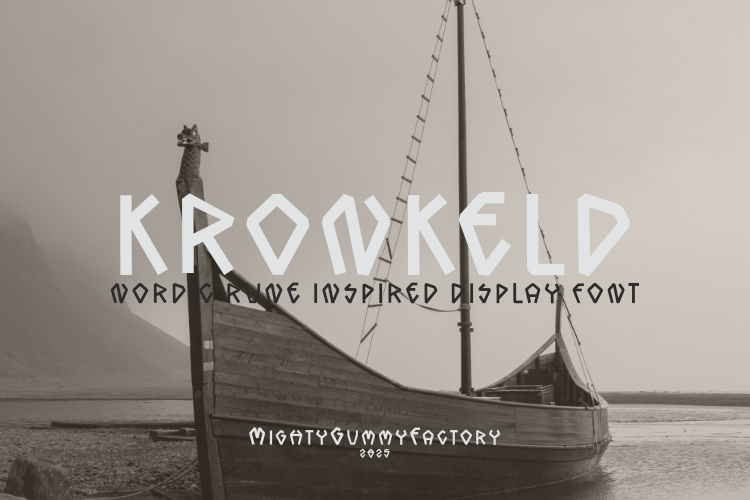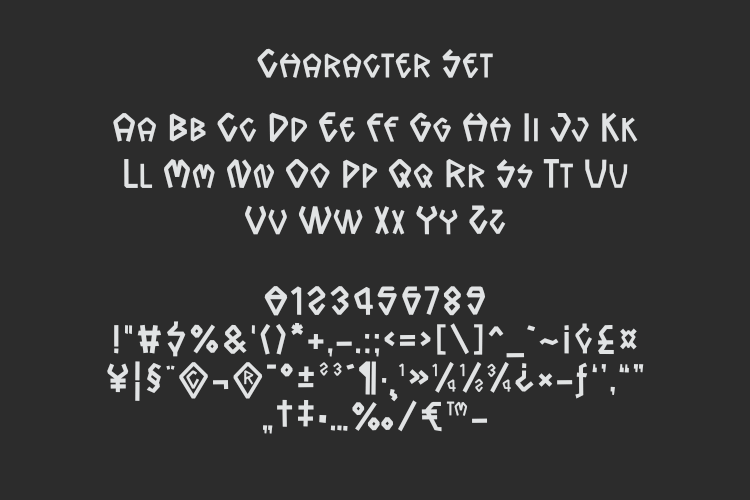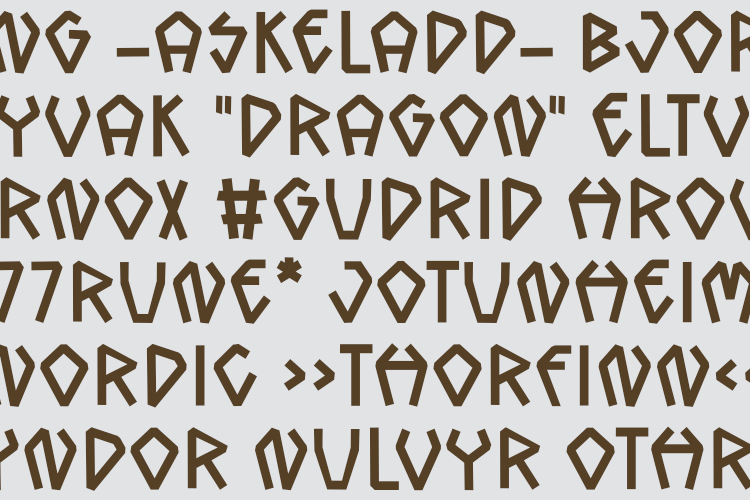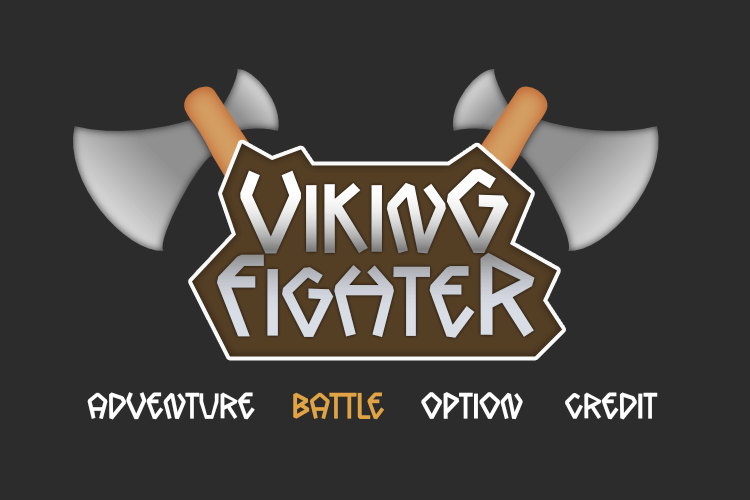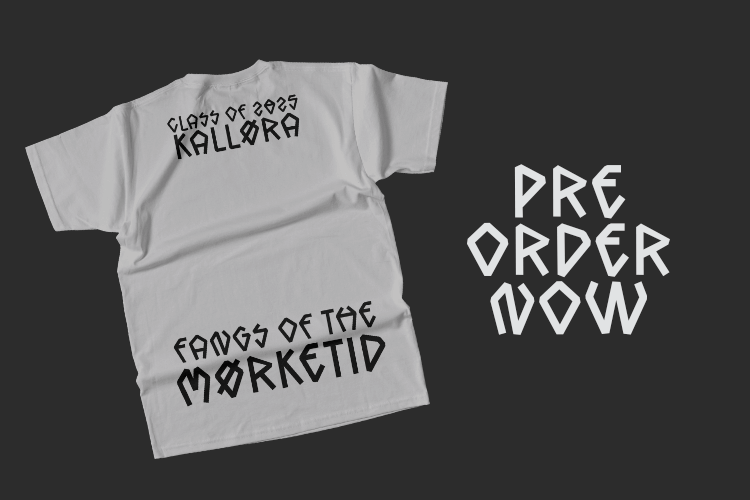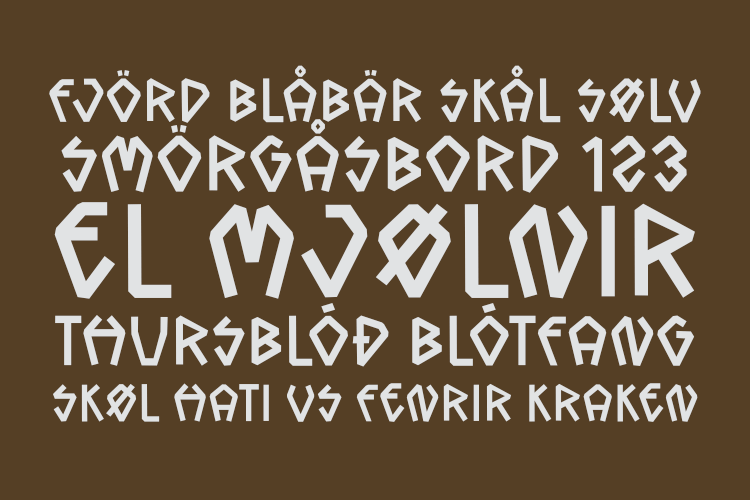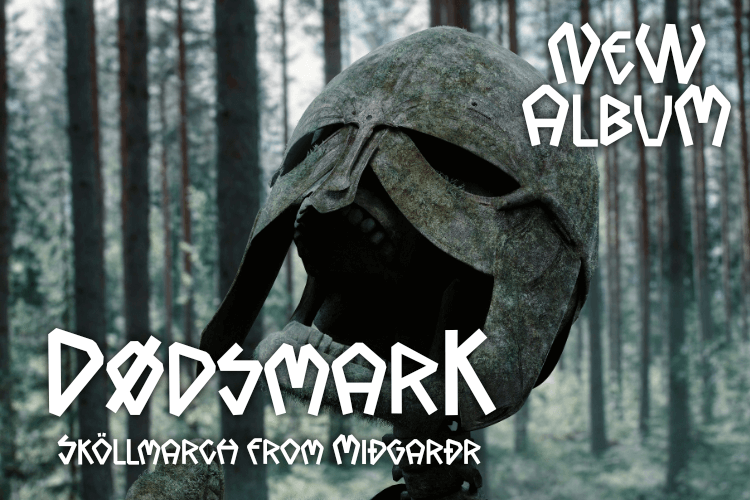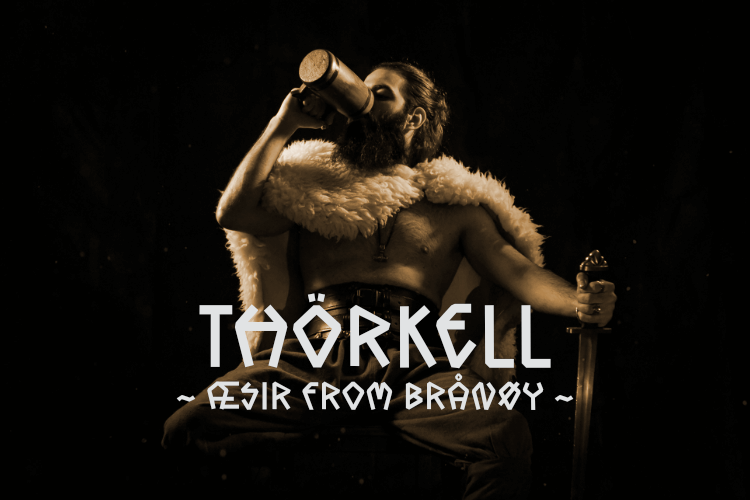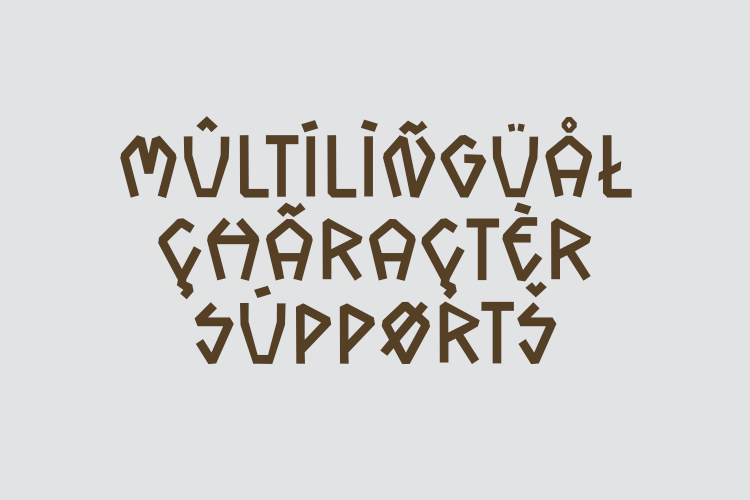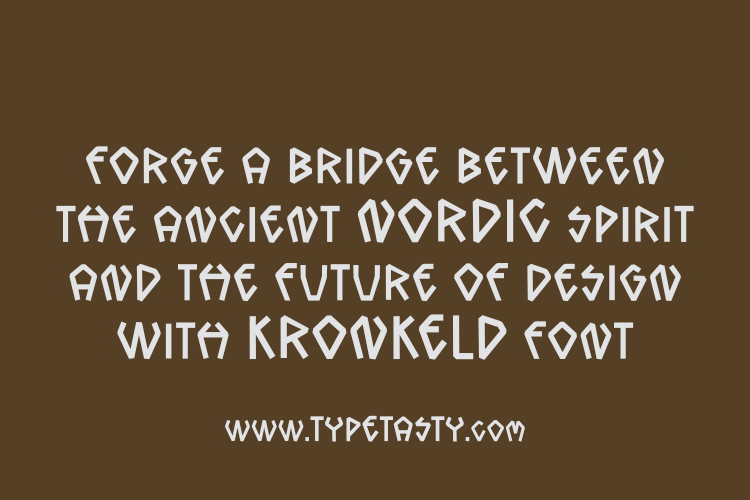
MGF Kronkeld
KRONKELD is a rune-inspired display font that merges ancient Nordic mysticism with futuristic geometric design. Its angular shapes and cryptic feel make it a perfect choice for gaming, fantasy, posters, apparel, logos, and cinematic branding. Both mysterious and modern, KRONKELD gives your projects a bold, unforgettable identity. Available in OTF, TTF, and WOFF formats.
KRONKELD is a Nordic rune-inspired typeface with a sharp geometric twist. It bridges ancient runic mystique with a modern futuristic aesthetic, creating a font that’s bold, cryptic, and highly versatile.
• Style & Energy: Futuristic, cryptic, bold, and mysterious.
• Market Vibe: Perfect for gaming titles, fantasy posters, metal bands, fashion branding, and cinematic graphics.
• Letterform Structure: Angular runic-inspired shapes, sharp geometric cuts, modern minimalism.
• Best Use Cases: Logos, video games, book covers, posters, apparel, album artwork, and tech branding.
Forge a bridge between the ancient Nordic spirit and the future of design with KRONKELD. Inspired by runes and sharpened with geometric precision, this font commands attention in every project from fantasy epics to futuristic tech branding.
Key Features
• Nordic & Runic Influence – Echoes mythology and ancient symbolism.
• Futuristic Geometry – Perfect balance of minimalism and boldness.
• Cryptic & Eye-Catching – Instantly memorable and mysterious.
• Versatile Applications – From fantasy games to high-fashion logos.